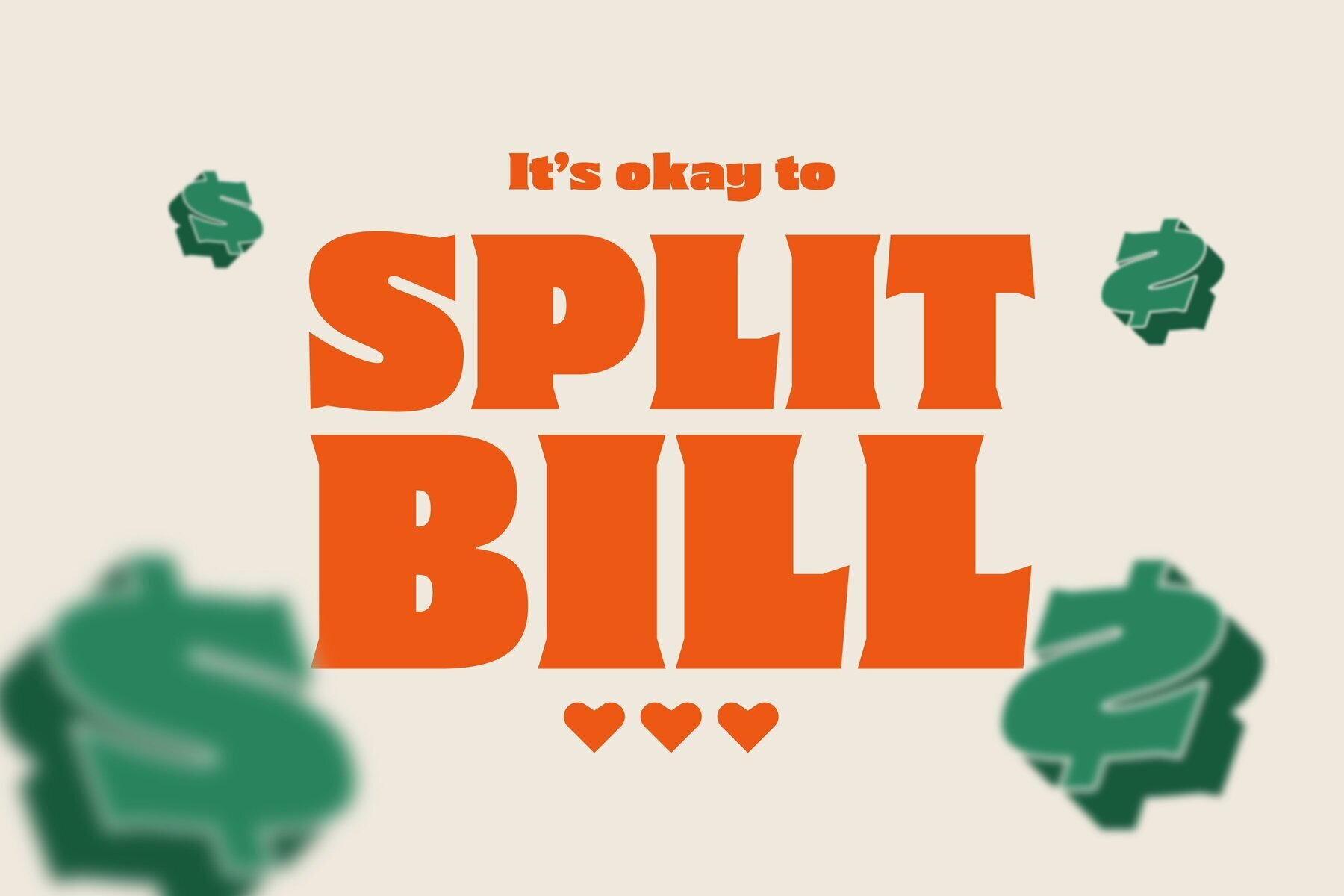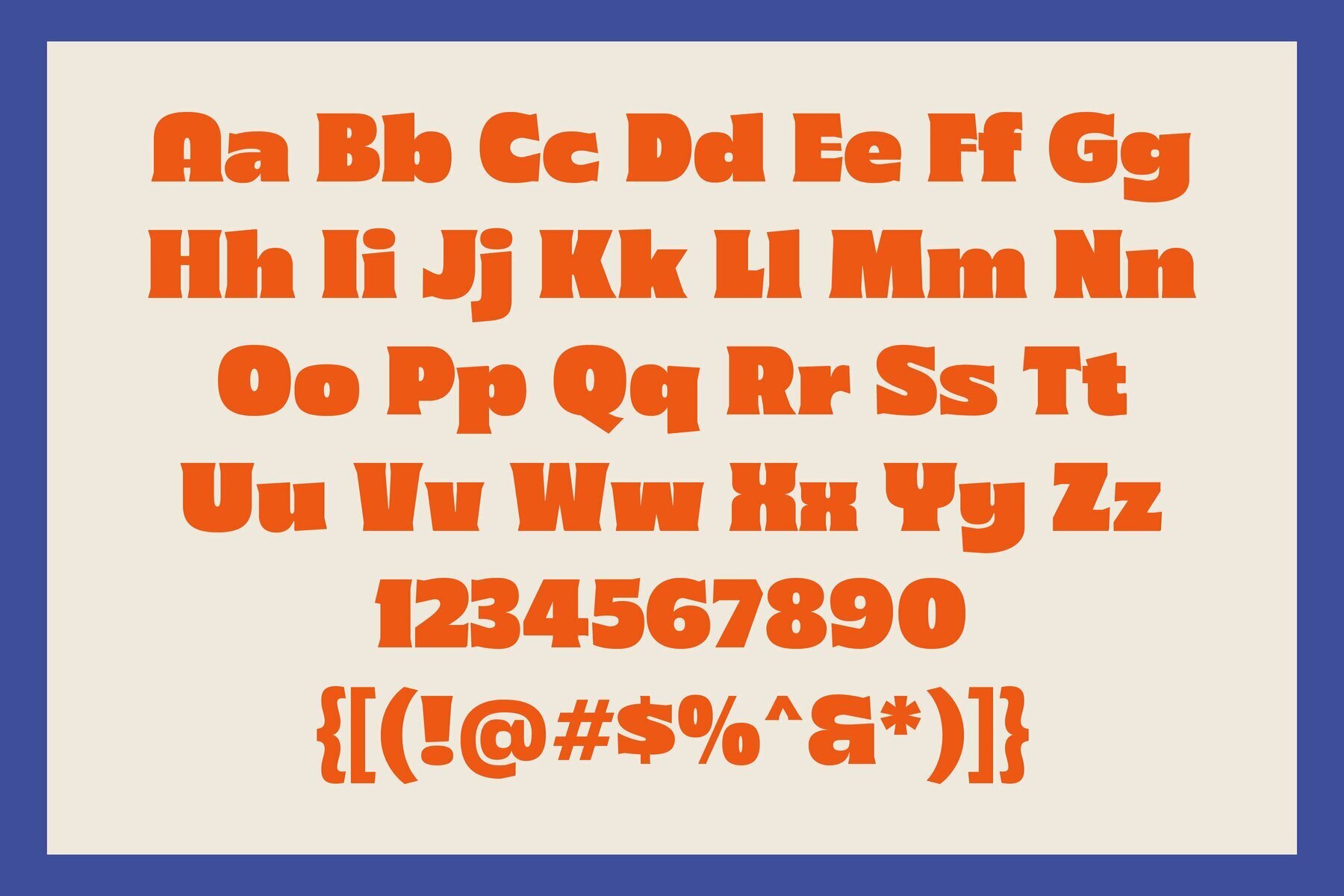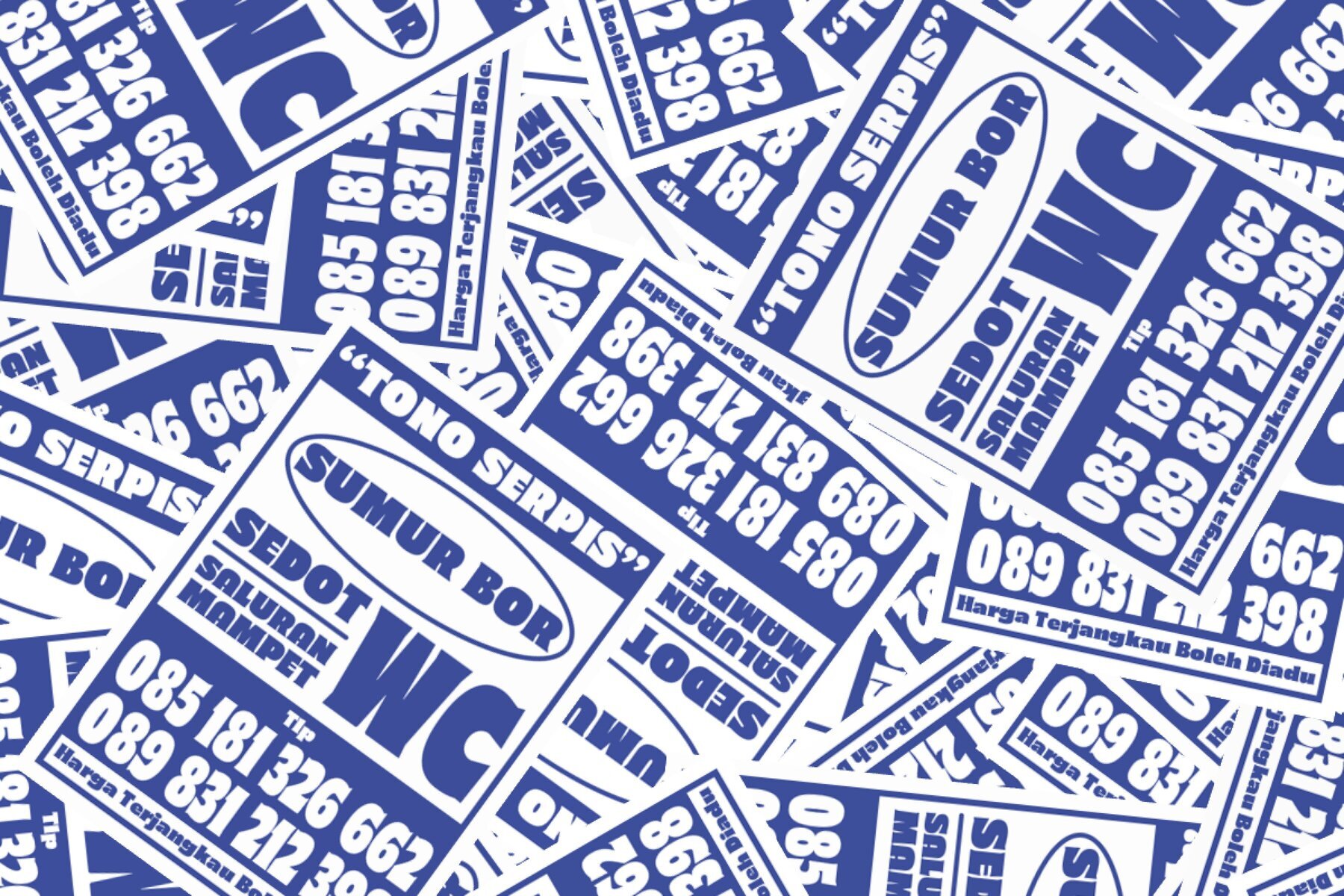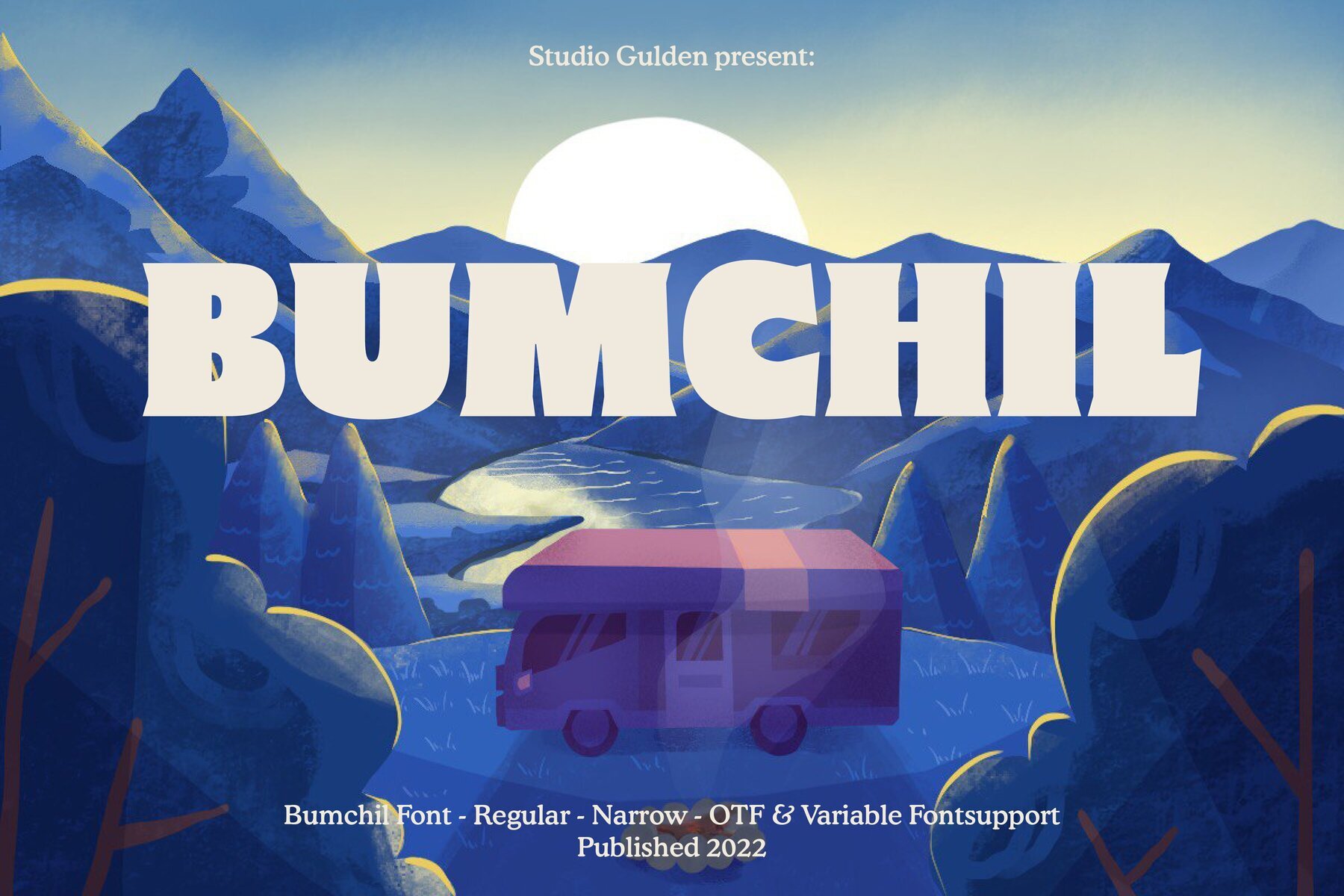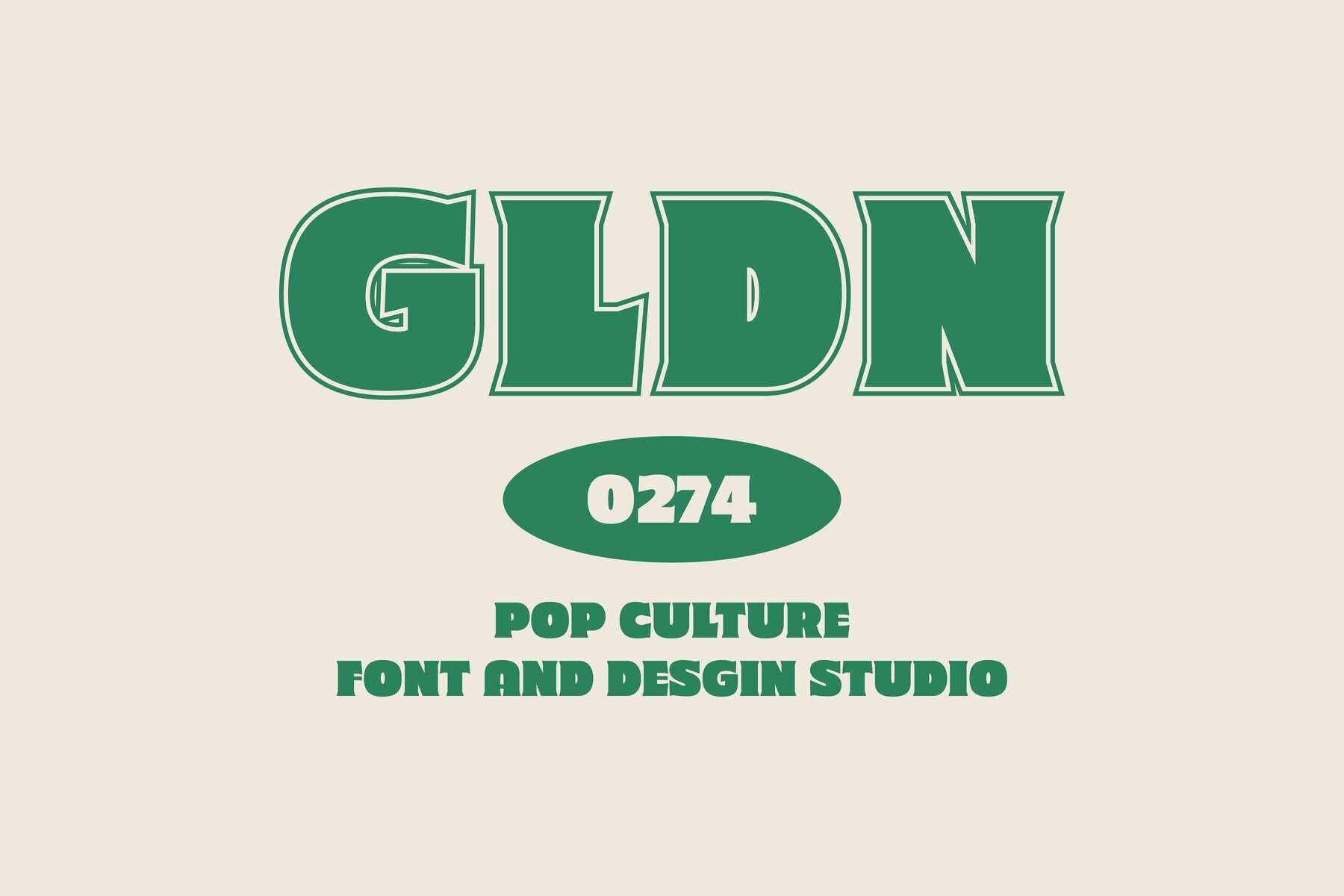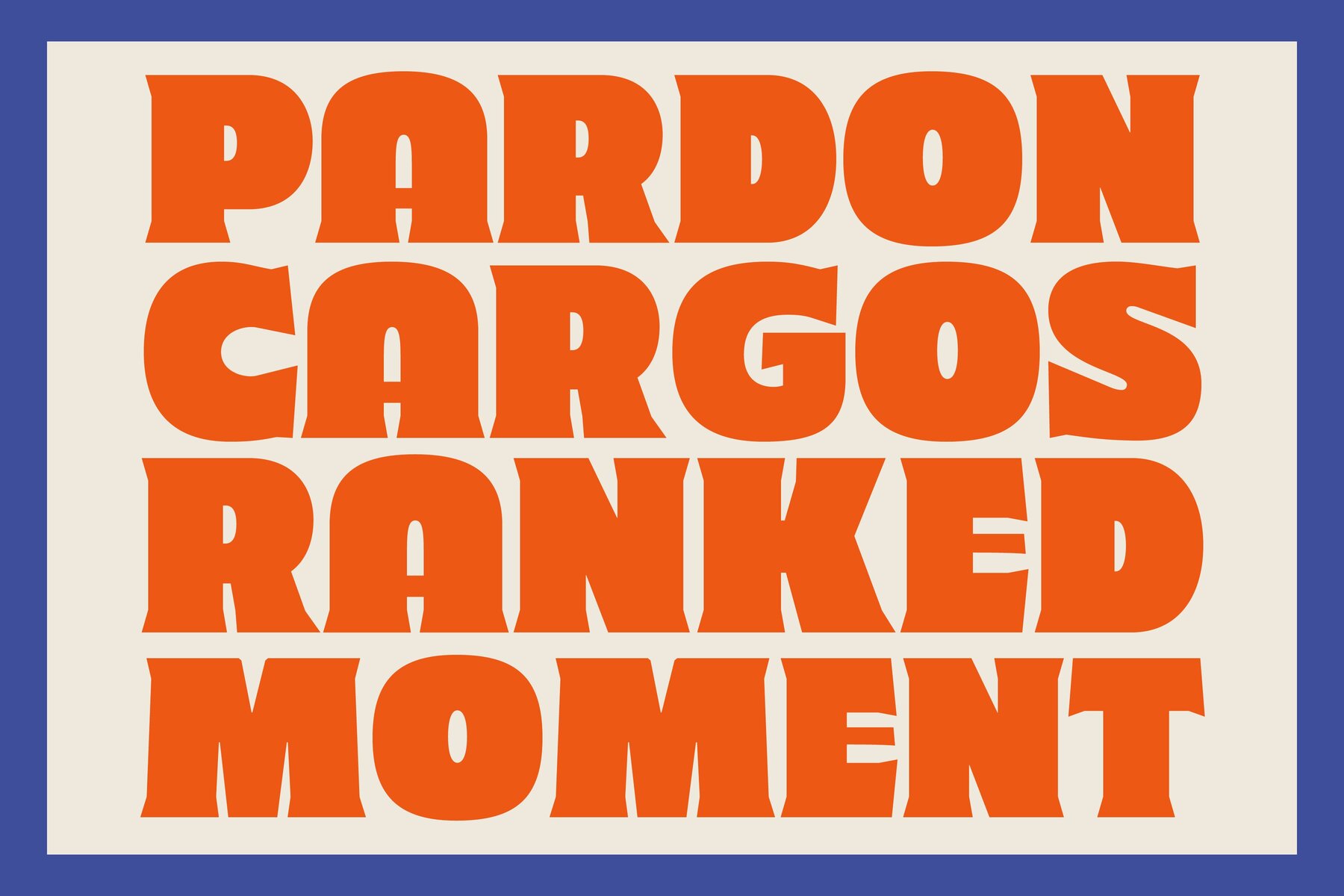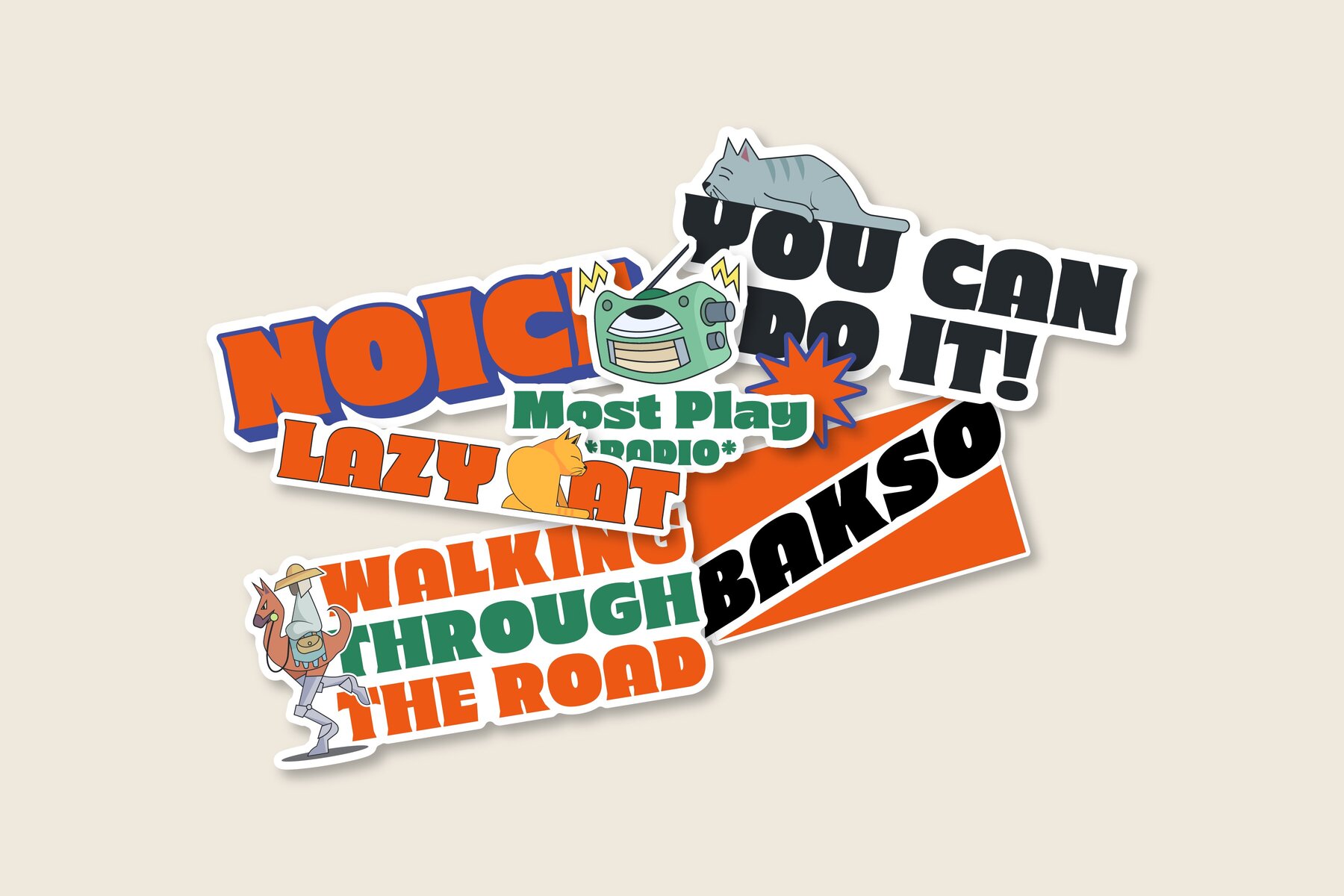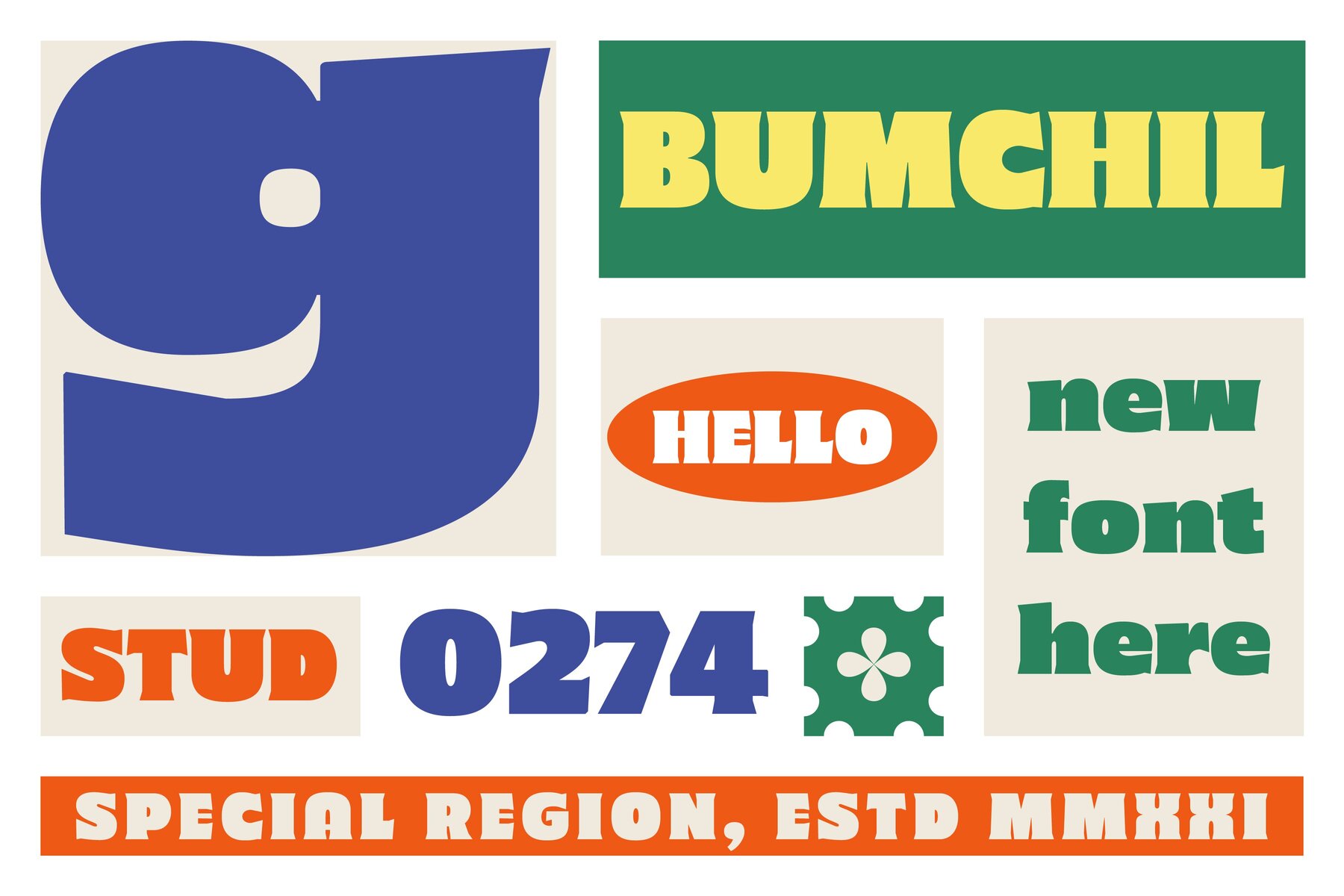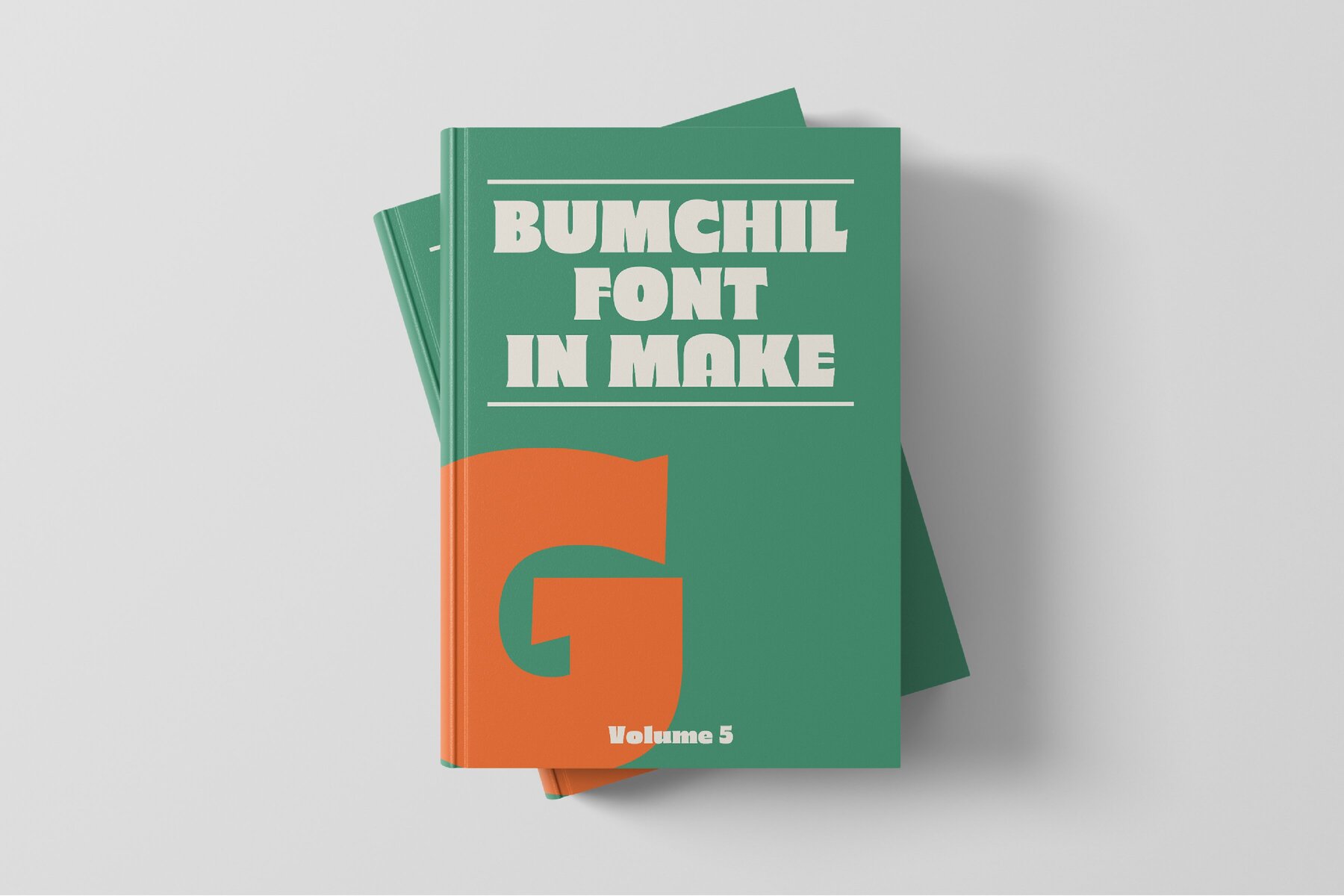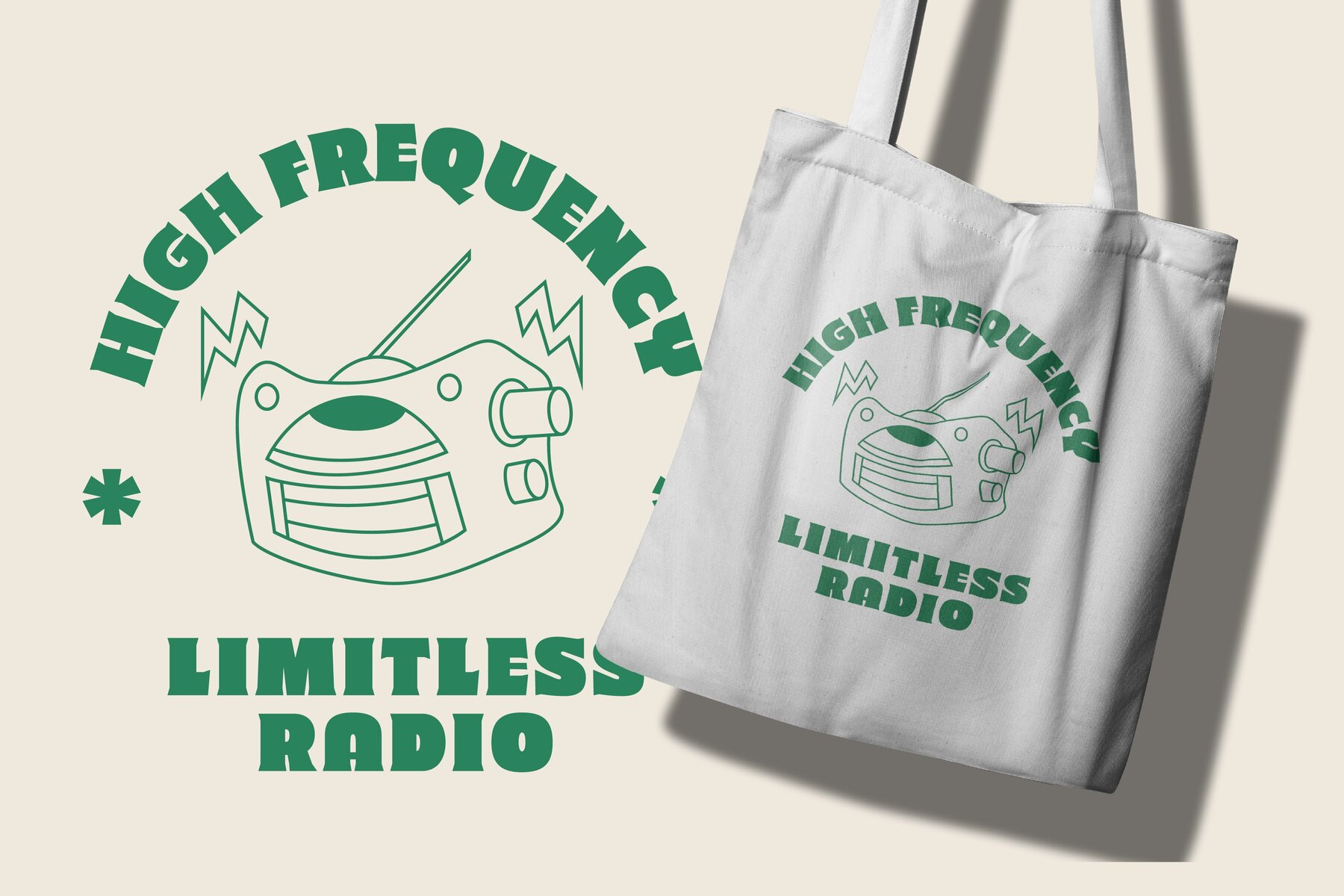
SG Bumchil Font
SG Bumchil Regular
SG Bumchil Slant
SG Bumchil Narrow
SG Bumchil Narrow Slant
The typeface called Bumchil has four styles that are perfect for multiple design styles. The uppercase and lowercase letters will help you create a fun, pop culture-inspired design with an edge to it!